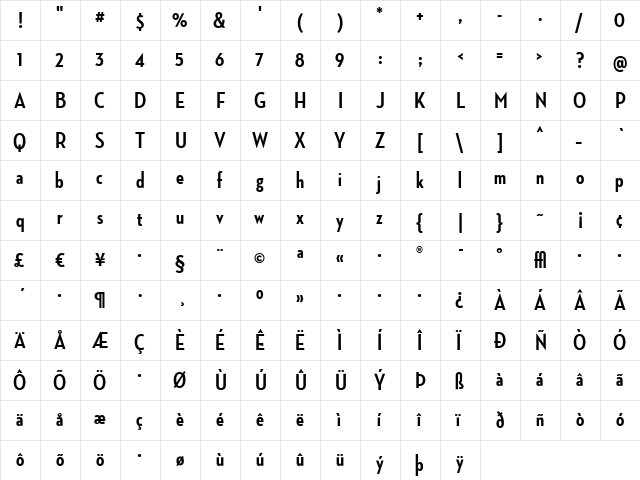
NeutrafaceCondensedPS Bold
Design Context for NeutrafaceCondensedPS Typeface
NeutrafaceCondensedPS is a composed and adaptable typeface that performs quietly and consistently across a wide range of design contexts. The heavy weight commands attention and anchors typographic hierarchies. Its narrow stance lets it pack a punch even in space-constrained designs.